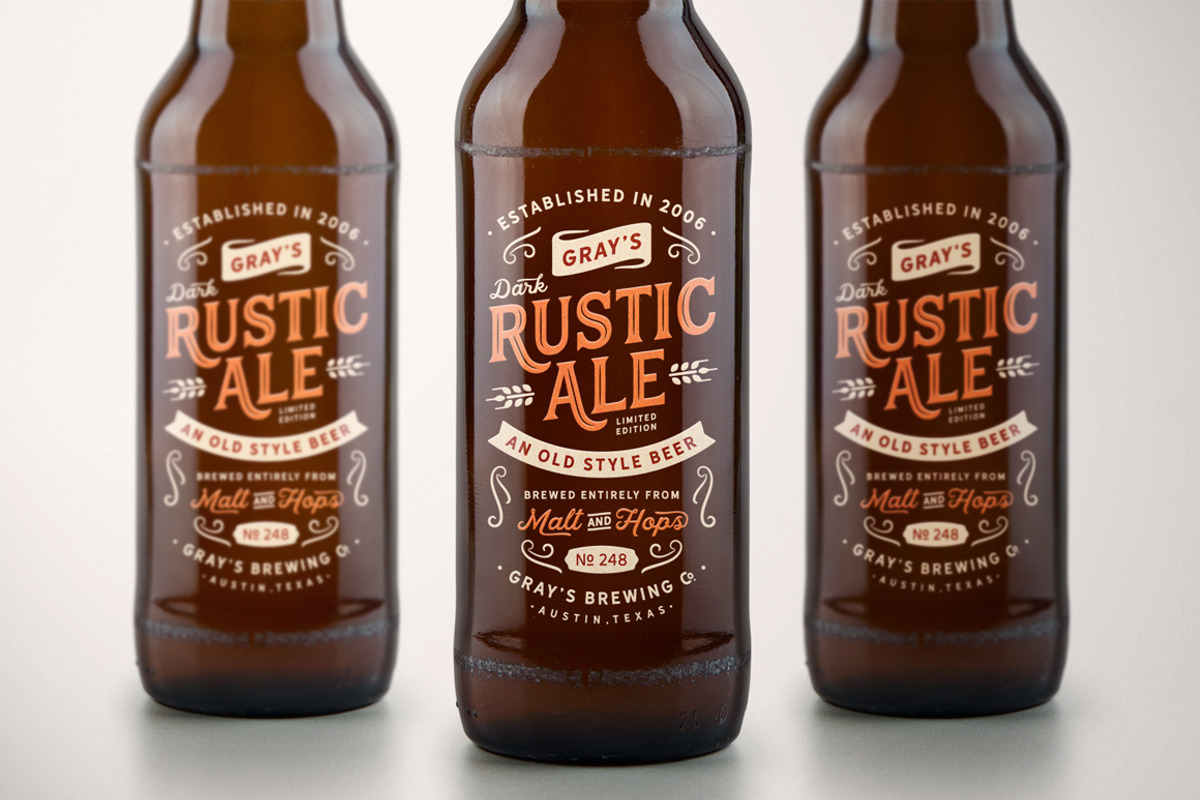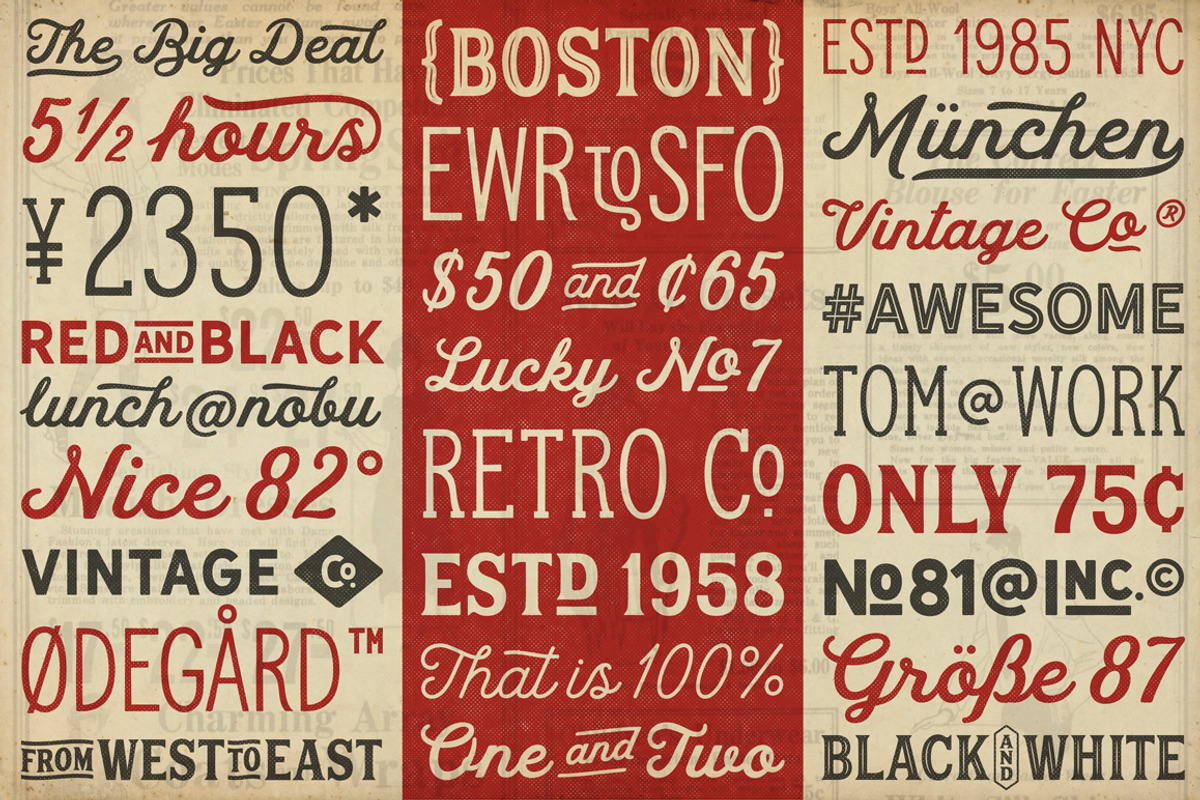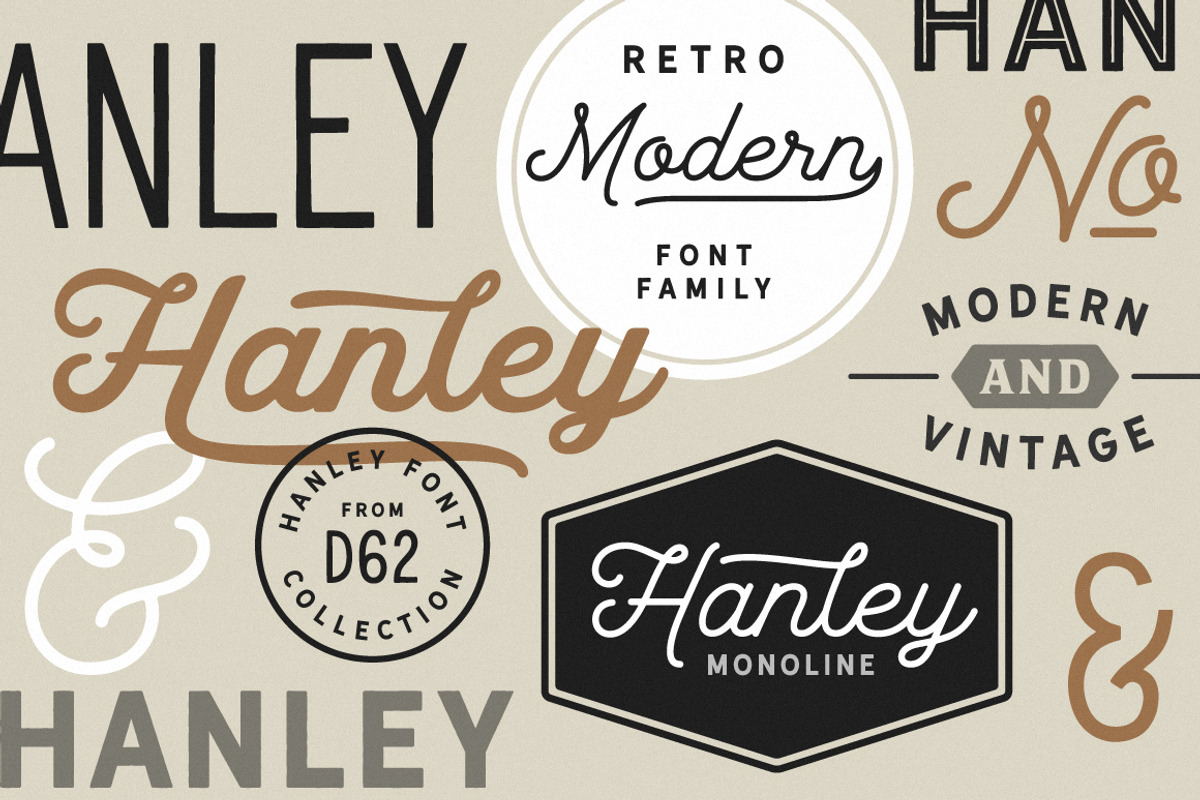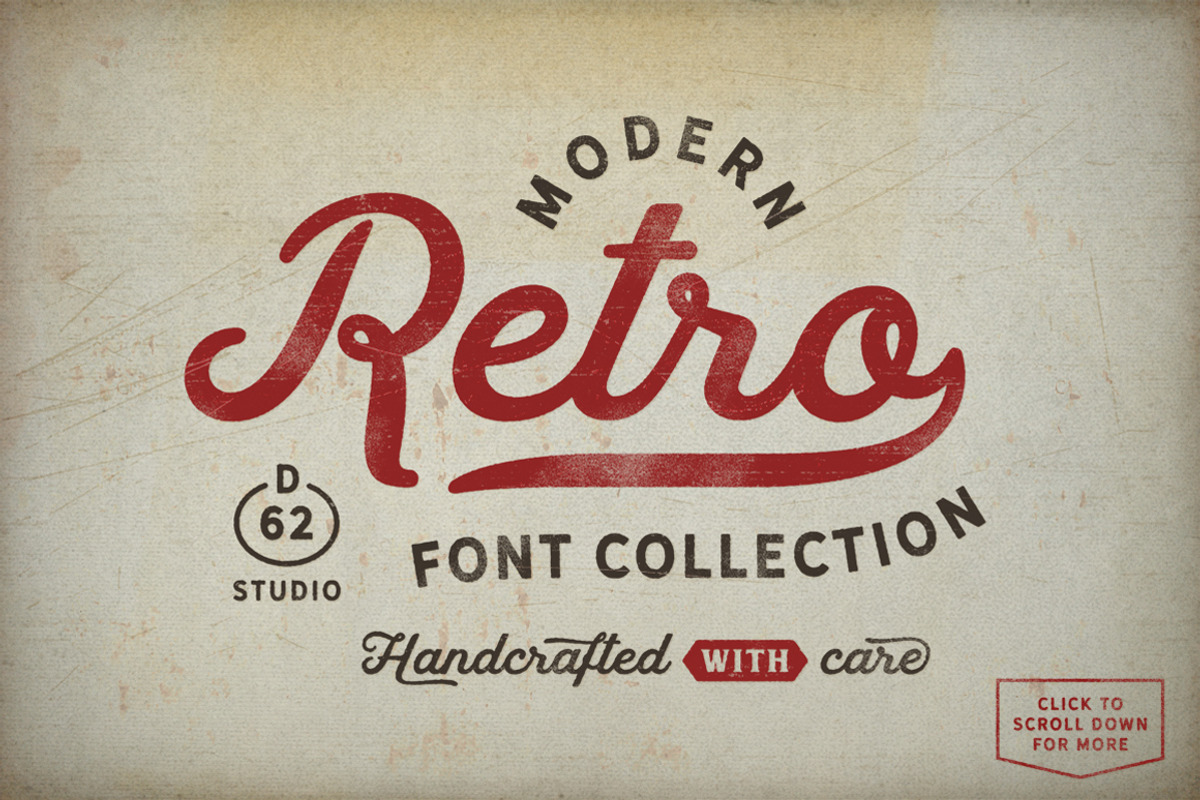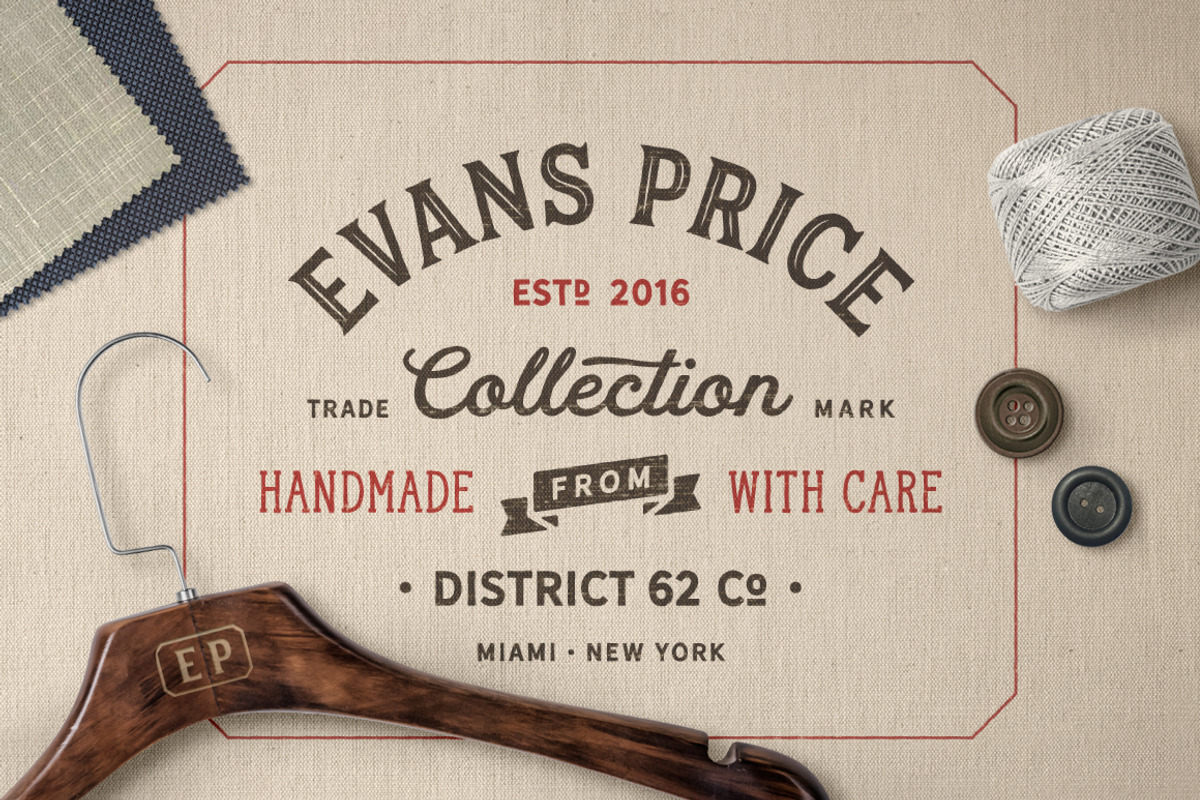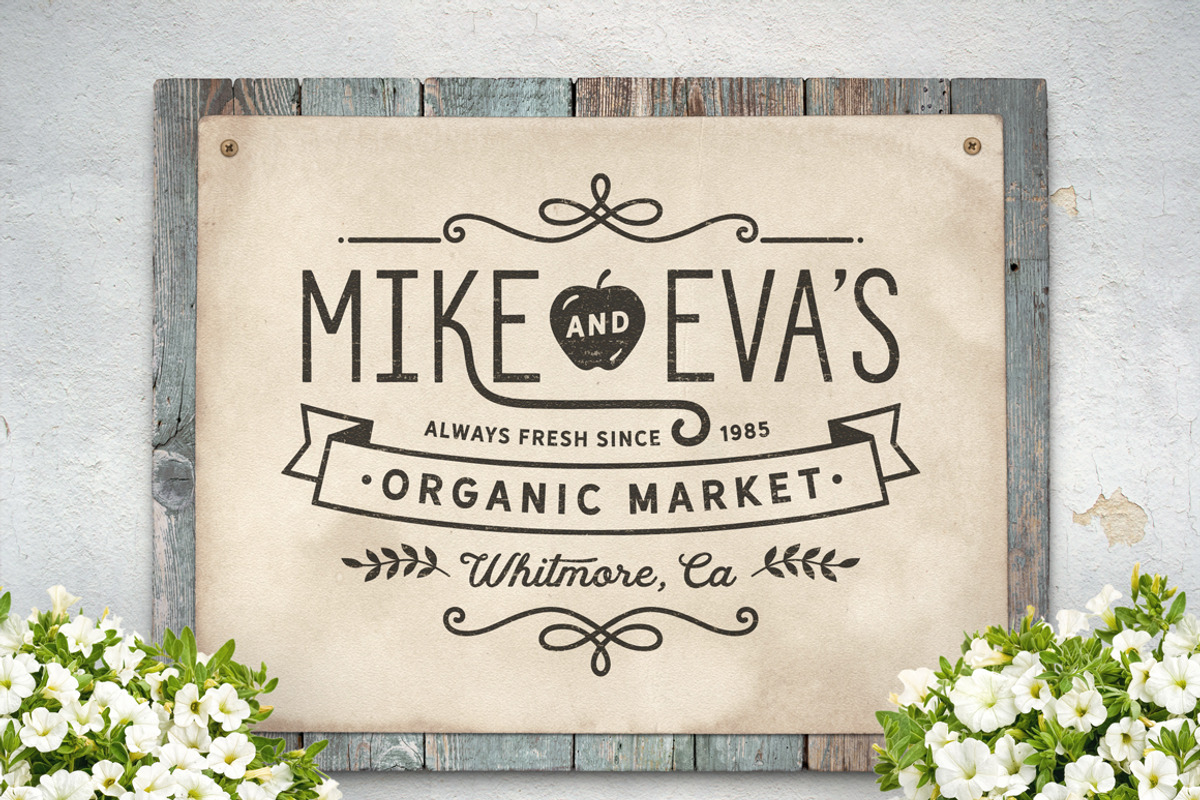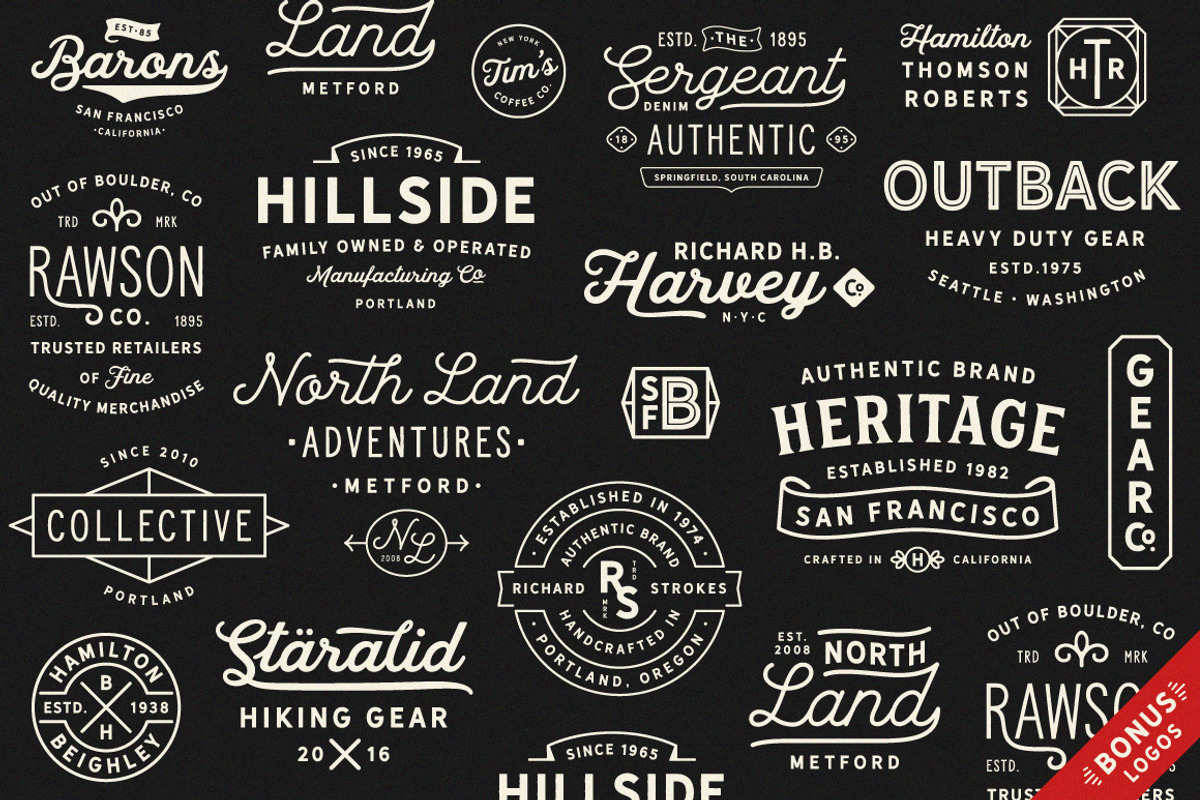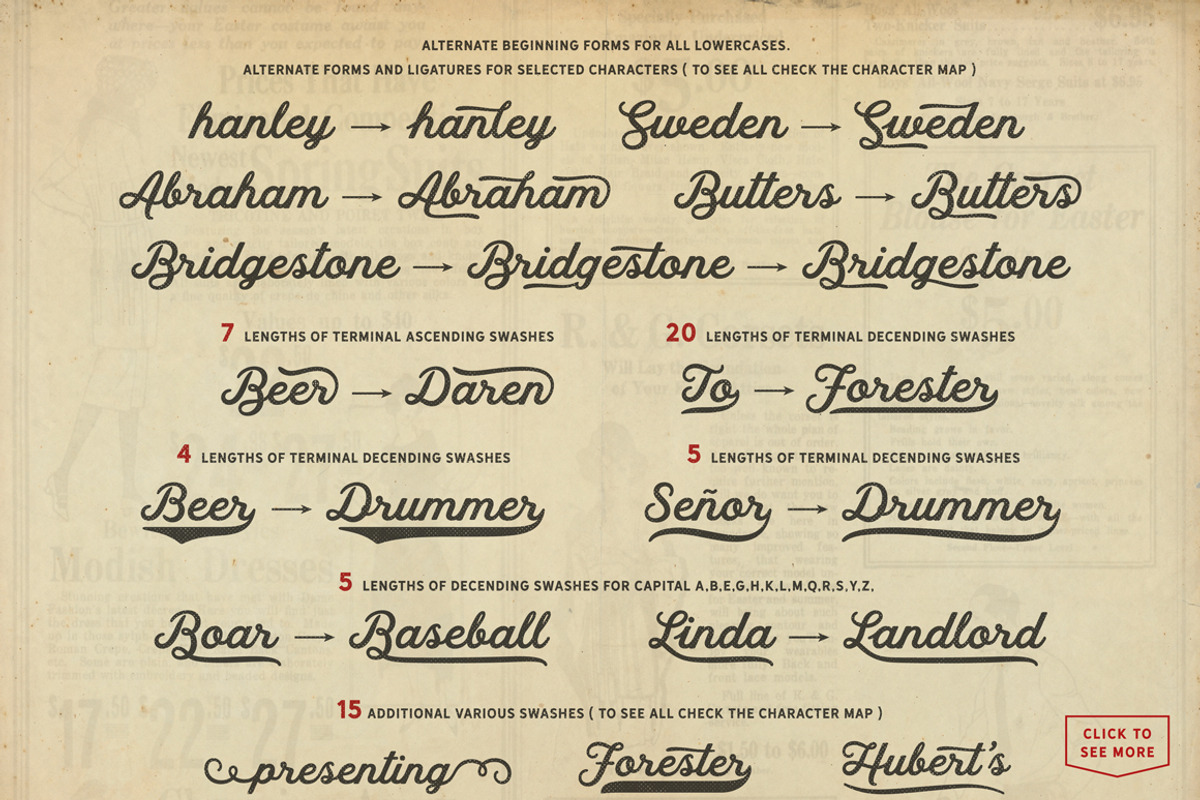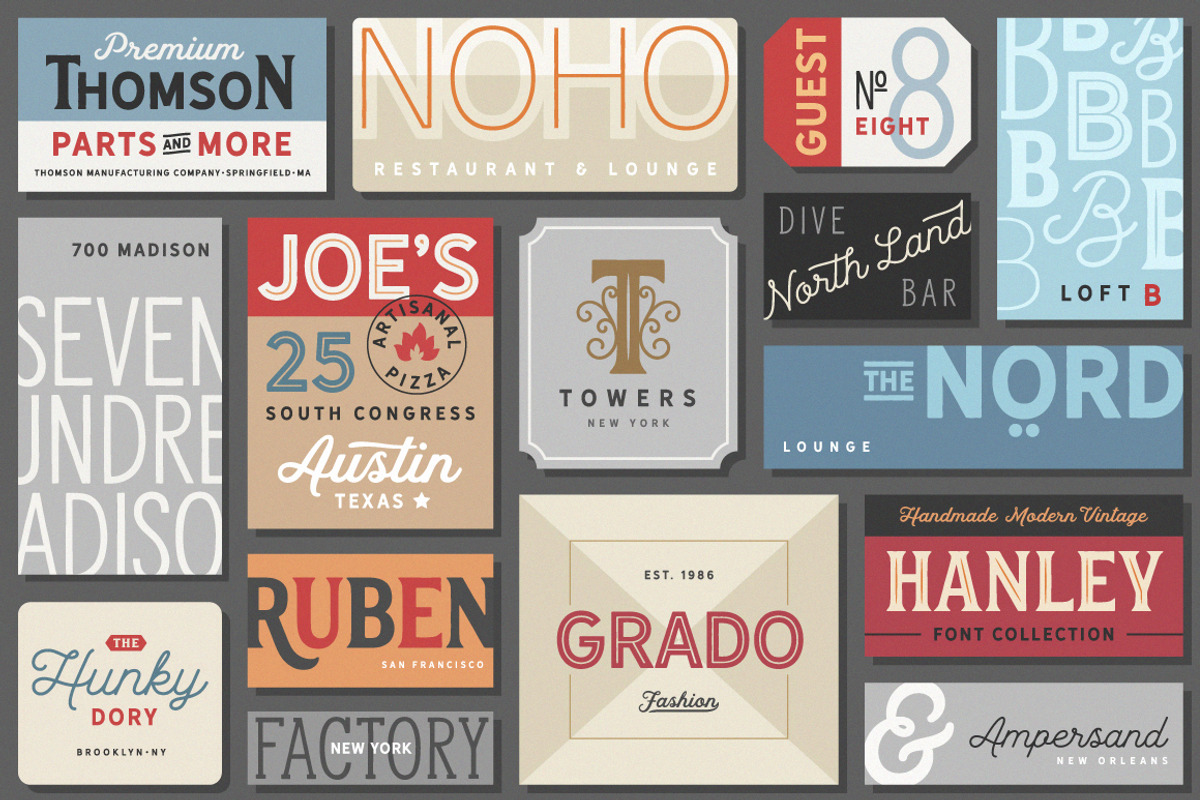
Hanley Font Collection
Hanley Font Collection from District 62 is a group of fonts that consists of 12 font files and 2 Extras fonts that work extremely well together for an authentic vintage look with a modern vibe. It features letterforms with just the right amount of irregularity to the edges and rounded corners to give a warm, human feel, that creates a sign-painterly, hand-drawn vibe that still looks clean. Hanley is extremely versatile, it can look fresh and modern or authentically vintage. We think this group is perfect for logos, restaurant and cafe branding, typographic designs, signage or any project where you need a fresh take on a vintage look.
- 2 sets of extras that have comprehensive catchwords, swashes, frames and ornaments to compliment your designs. These are assigned to keystrokes, or can be accessed through glyphs window.